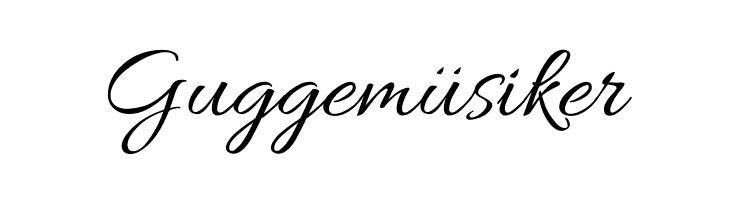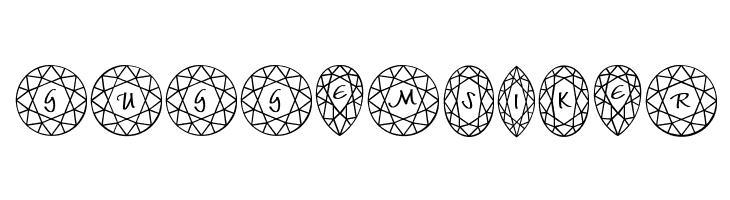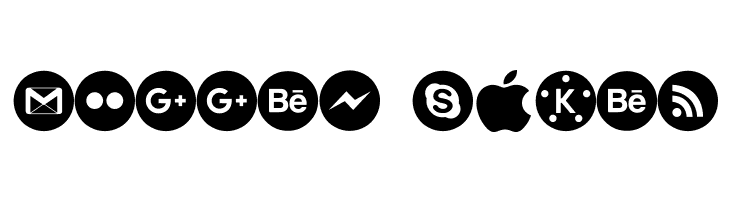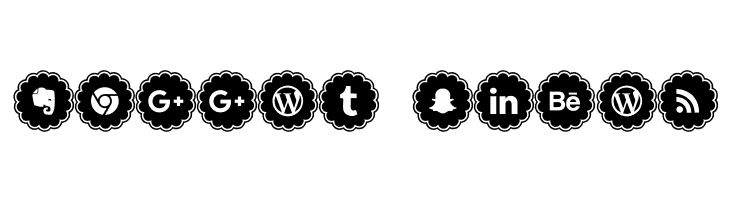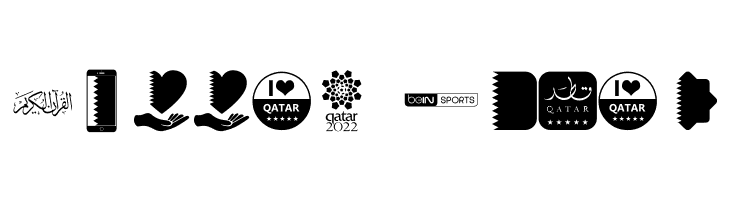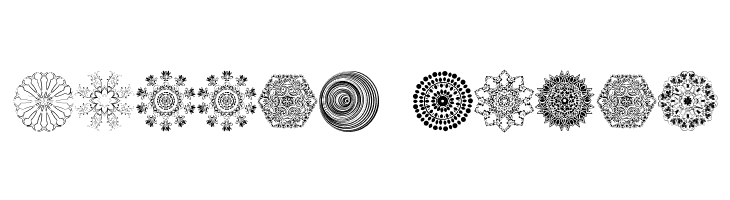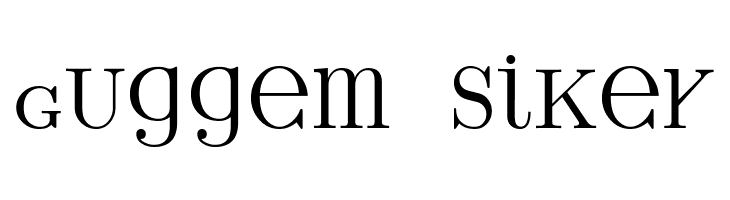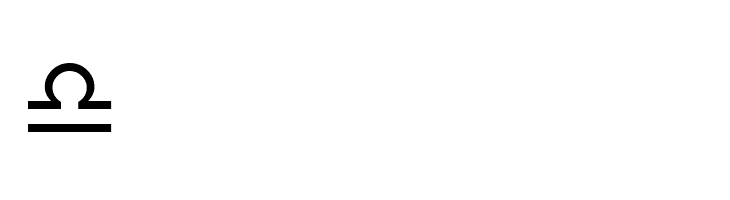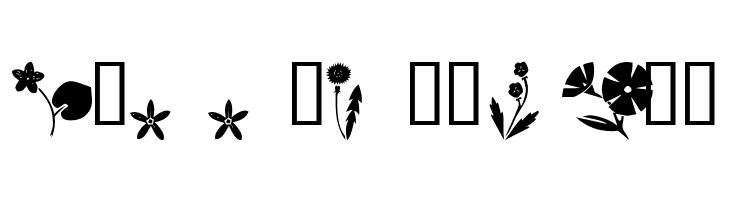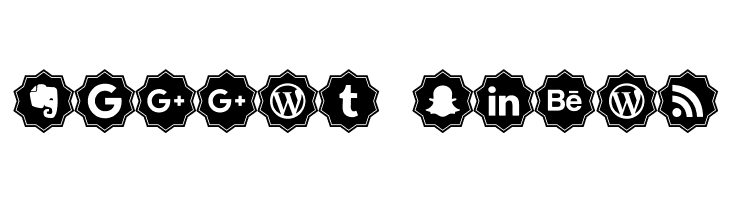
A modern serif font with elegant proportions and clear readability.
A clean and elegant serif font with a light weight and balanced proportions.
A semi-bold serif font with moderate contrast and a classic yet modern appeal.
A bold serif typeface with strong strokes and classic elements.
An elegant script font with fluid, cursive strokes and a modern touch.
A decorative font with letters set in gem-like shapes, offering a luxurious and elegant appearance.
A bold, graffiti-inspired font with sharp, angular lines and a rebellious style.
A modern and elegant set of zodiac symbols with consistent line weight.
A decorative floral and leaf dingbat set with varied botanical silhouettes.
A playful set of dingbat symbols themed around scrapbooking and crafting tools.
A bold, cursive script font with dramatic flourishes and high contrast.
An elegant and ornate script font with flowing letterforms and decorative swashes.
A decorative snowflake dingbat set with diverse, intricate designs.
A diverse set of musical and eclectic dingbats with detailed illustrations.
A graceful and flowing script font with elegant, continuous strokes.
A bold, pictographic dingbat set with diverse icons for signage and infographics.
Ornamental and decorative dingbat set with borders and flourishes.
A playful, heart-themed decorative dingbat set.
Hand-drawn, whimsical food and kitchen icon set.
Modern, bold pictogram set for real estate and property themes.
A clean, structured serif font with medium contrast and excellent readability.
A bold, flowing script font with high contrast and elegant curves.
Bold, geometric icon set for mobile and communication interfaces.
A diverse set of whimsical hot air balloon illustrations in various styles.
Playful, high-contrast decorative ice cream icon set.
Bold, geometric stencil-style icon set with rounded lines and cut-out effects.
A festive set of bold Christmas-themed icons for decorative use.
Outlined, festive Christmas icon set with consistent line style.